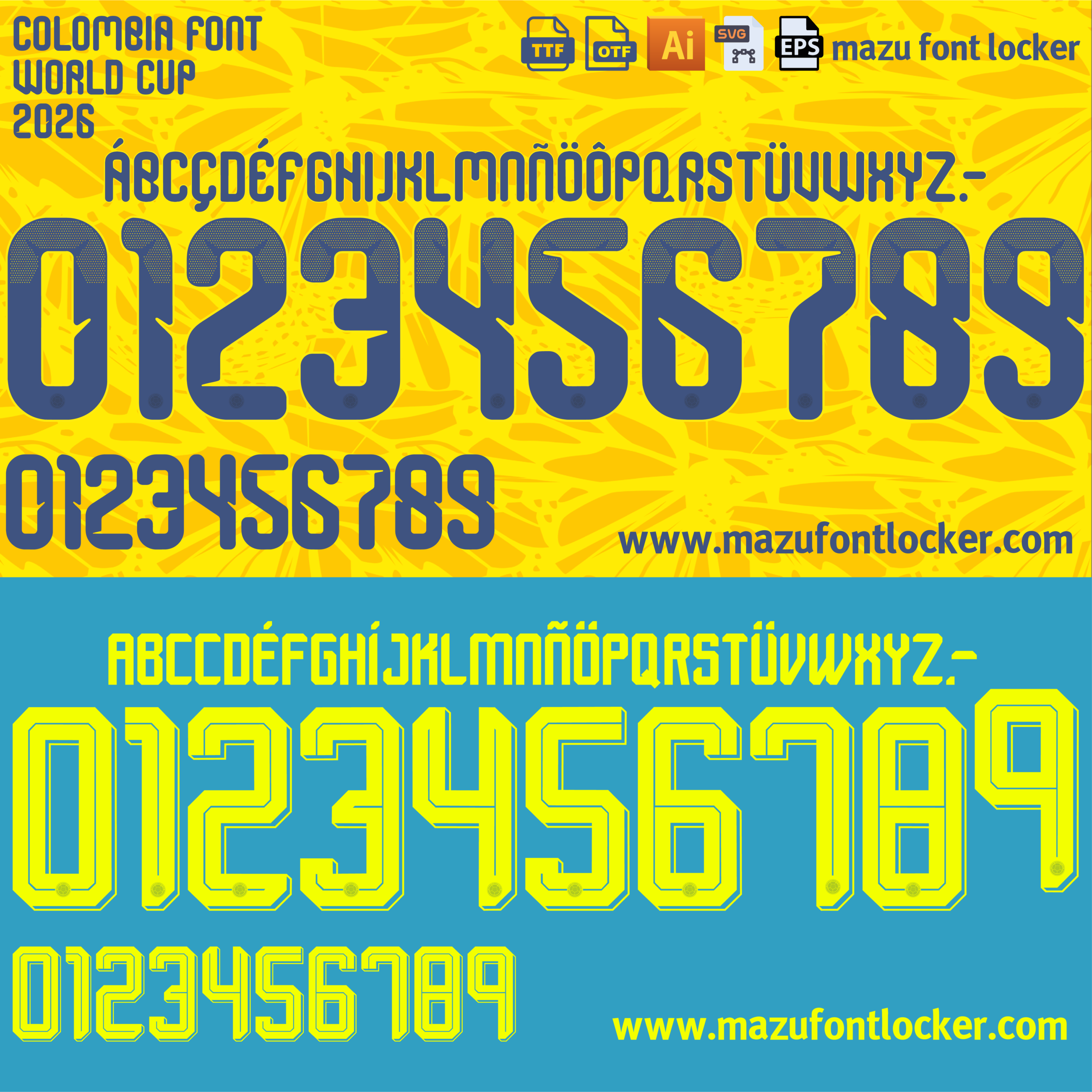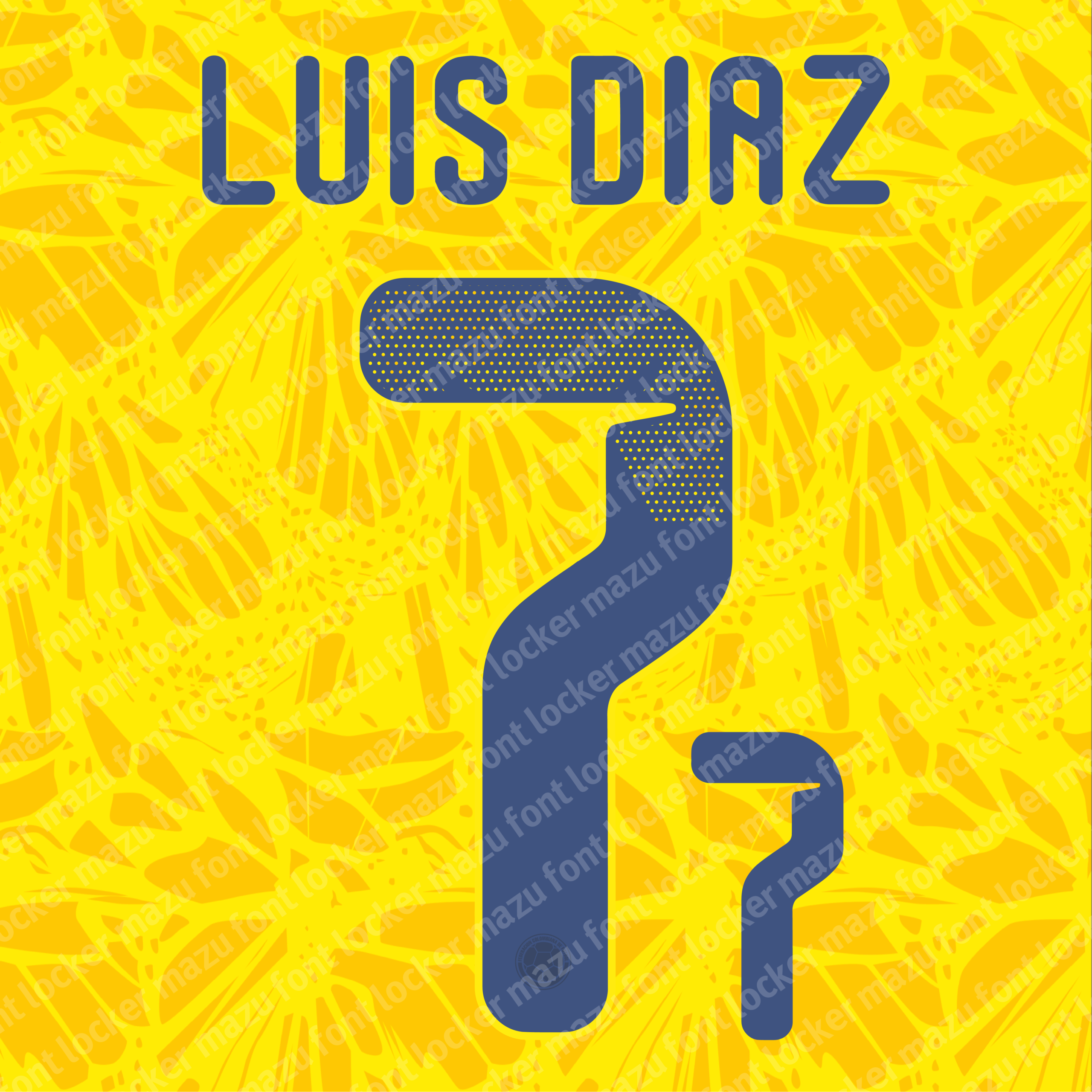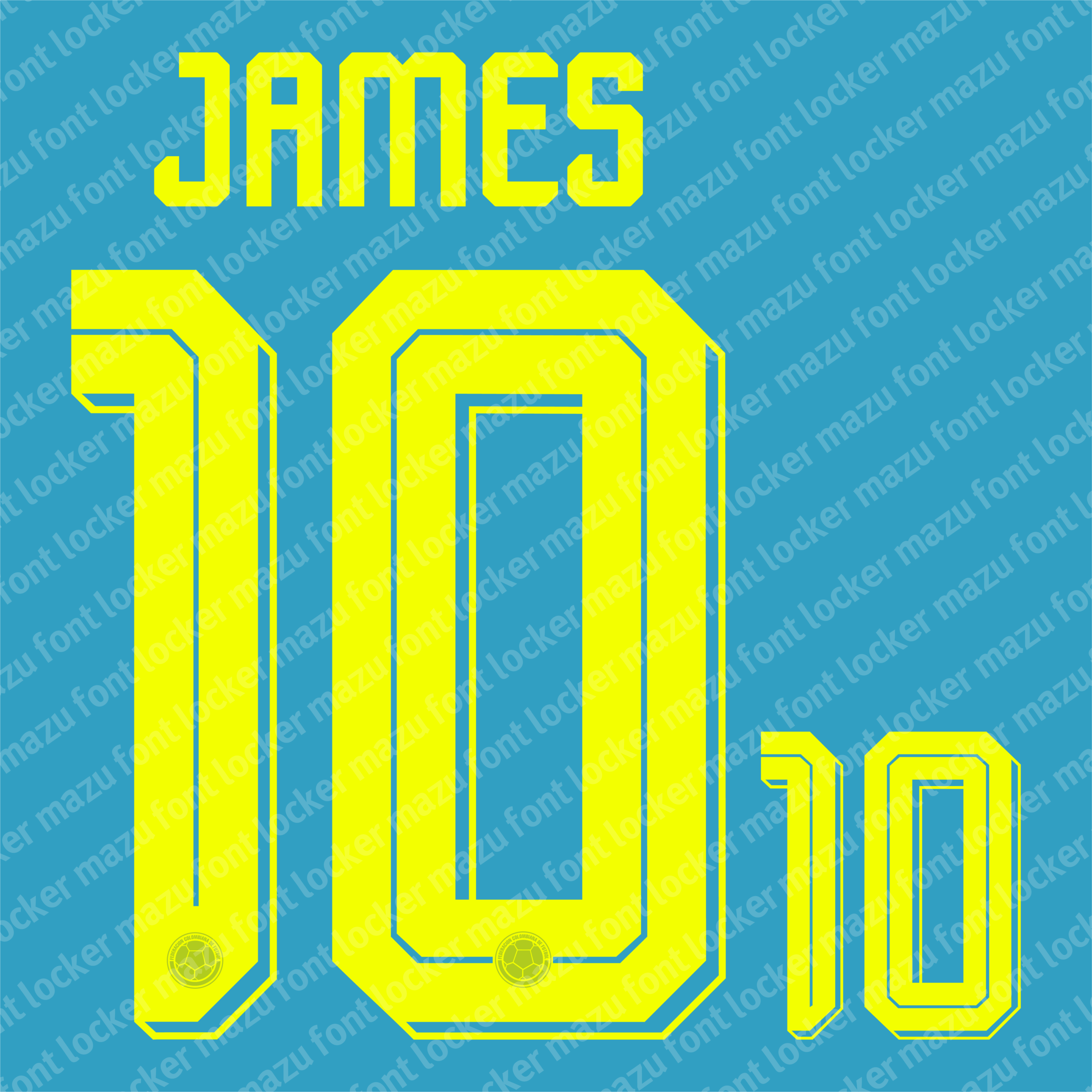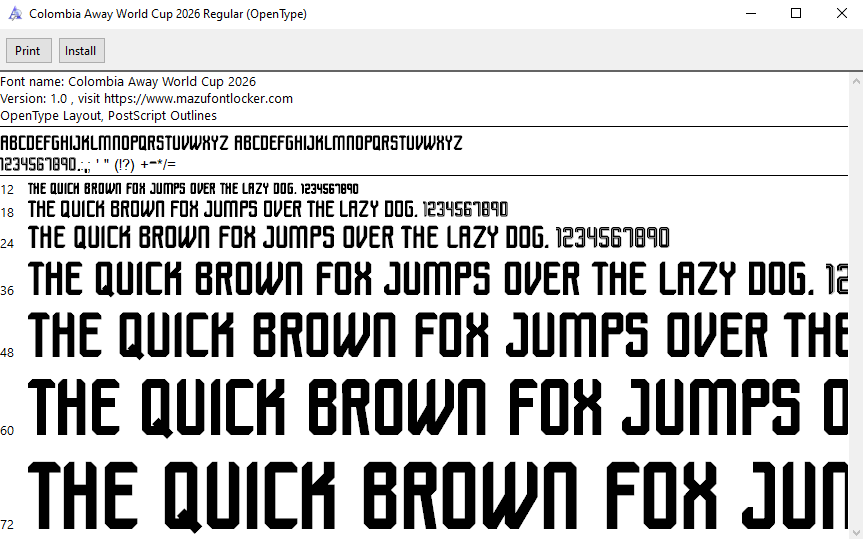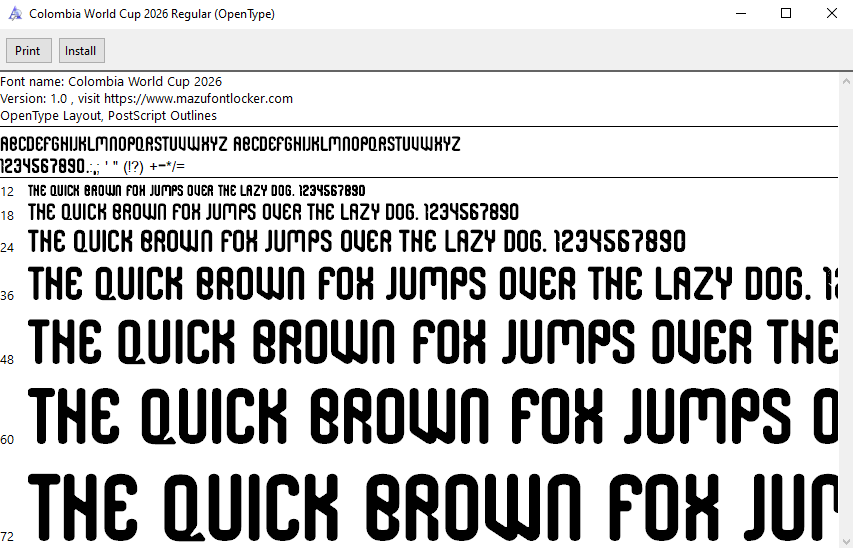
Colombia World Cup 2026 Home & Away Font Vector (Digital Download)
Colombia World Cup 2026 font, names and numbers, fully editable VECTOR file for customisation.
Complete design with the Colombia World Cup 2026 numbering and lettering for the Incoming World Cup 2026 Match .